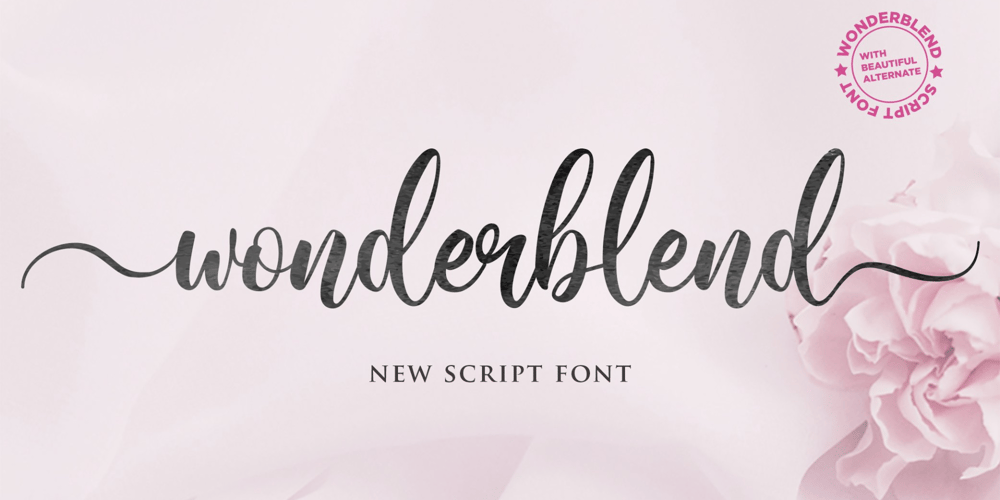
Wonderblend Font Family was designed by Irpan Maulana and published by Sabrcreative. Wonderblend contains 3 styles and family package options. Introducing Wonderblend Script with Swashes Ligatures Font, a stunning script font that combines elegance and versatility. With its flowing letterforms, enchanting swashes, and beautiful ligatures, this font is perfect for adding a touch of sophistication to your designs. Whether you’re working on wedding invitations, branding materials, or creative projects, Wonderblend Script with Swashes Ligatures Font will elevate your work and leave a lasting impression.The uppercase and lowercase characters in Wonderblend Script with Swashes Ligatures Font offer a harmonious balance and allow for flexible and dynamic typography. The intricate swashes add an exquisite flair to the letterforms, providing an elegant and decorative touch. In addition, the font includes a wide range of ligatures, ensuring smooth and seamless connections between letters for a more natural and handwritten look.Not only is Wonderblend Script with Swashes Ligatures Font visually appealing, but it also offers functional features. It supports numbers and punctuations, enabling you to incorporate them seamlessly into your designs. Its multilingual capabilities allow you to communicate your message effectively across different languages and reach a global audience.With PUA encoding, Wonderblend Script with Swashes Ligatures Font provides easy access to alternate characters, giving you the freedom to experiment and create unique designs. The ligatures and alternates add variety and style, allowing you to customize your text and add a personalized touch.Enhance your designs with the elegance and versatility of Wonderblend Script with Swashes Ligatures Font. Let your creativity shine and bring a sense of sophistication to your projects.